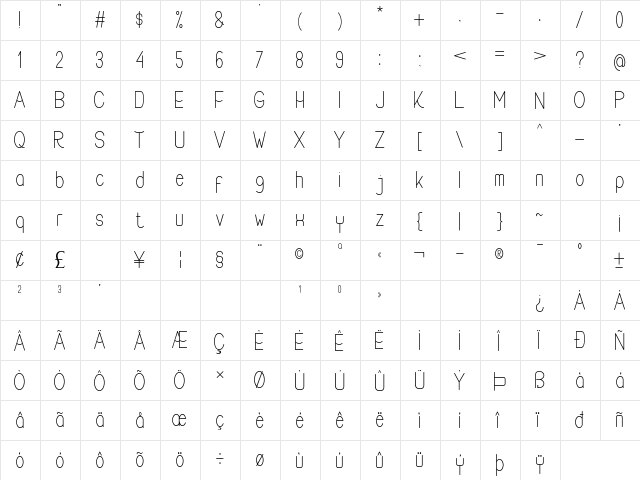
Buon Umore Thin Regular
Design Context for Buon Umore Thin Typeface
Buon Umore Thin takes a measured approach to typography — its balanced proportions and neutral character make it a reliable workhorse for both digital and print work. Its slender proportions lend an understated elegance to any composition.